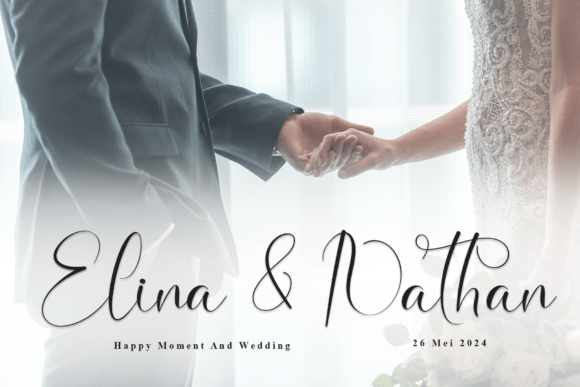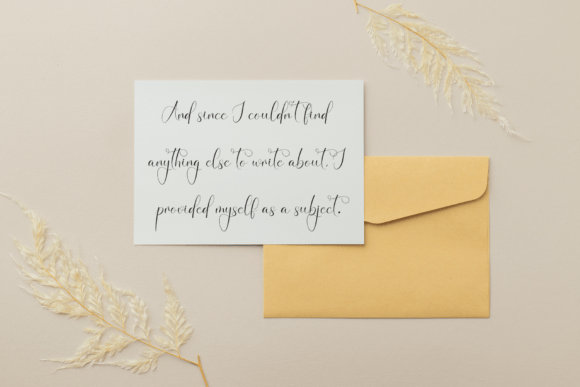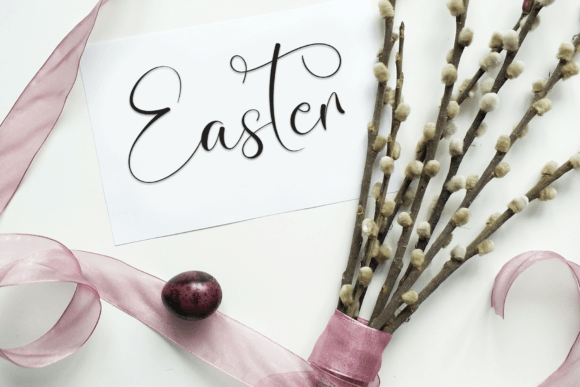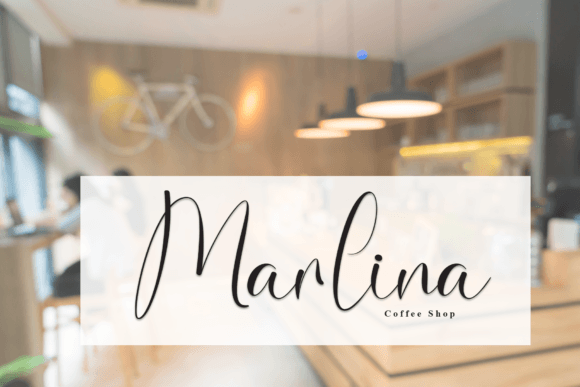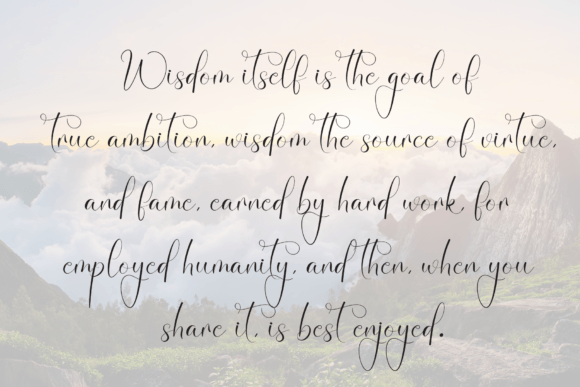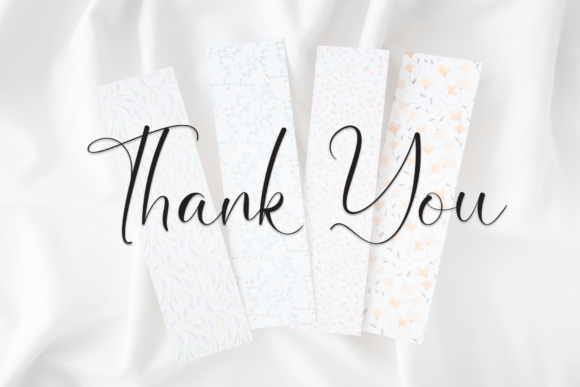
Introducing Bookmark Font: Elevate Your Designs with Elegance
In the world of typography, few fonts manage to capture the essence of elegance and sophistication as effectively as Bookmark Font. This stylish and incredibly elegant script font has become a go-to choice for designers and crafters looking to add a touch of refinement to their projects. From wedding invitations to business cards, Bookmark Font is the perfect addition to any design that requires a handwritten touch.
What Makes Bookmark Font Stand Out?
Bookmark Font boasts a unique blend of classic and modern elements, making it a versatile choice for a wide range of applications. Its elegant script design features flowing lines, intricate details, and a sophisticated flair that instantly elevates any text. Whether you’re working on a wedding invitation, a thank you card, or a logo, Bookmark Font adds a level of refinement that’s hard to match.
Wedding planners, event coordinators, and designers know how important it is to set the right tone for a special occasion. Bookmark Font is an excellent choice for wedding invitations, save-the-date cards, and other event-related materials. Its elegant design creates a romantic and sophisticated atmosphere, making it perfect for:
- Wedding invitations and save-the-date cards
- Thank you cards and RSVP cards
- Event posters and flyers
- Wedding programs and menus
Beyond Weddings: Other Uses for Bookmark Font
While Bookmark Font shines in wedding and event designs, its versatility extends far beyond. Designers and crafters can use this beautiful font for a variety of projects, including:
- Quotes and inspirational posters
- Elegance**: Bookmark Font adds a touch of sophistication to any design, making it perfect for projects that require a level of refinement.
- Versatility**: This font can be used for a wide range of applications, from weddings to business designs.
- Easy to read**: Despite its elegant design, Bookmark Font remains easy to read, making it perfect for both headings and body text.
- Customizable**: With its wide range of characters and ligatures, Bookmark Font can be customized to fit your design needs.
Bookmark Font is a stylish and elegant script font that can elevate any design with its refined and sophisticated touch. Whether you’re a designer, crafter, or DIY enthusiast, this versatile font is sure to become a favorite in your collection. With its wide range of applications, ease of use, and customizable features, Bookmark Font is the perfect choice for anyone looking to add a touch of elegance to their projects.